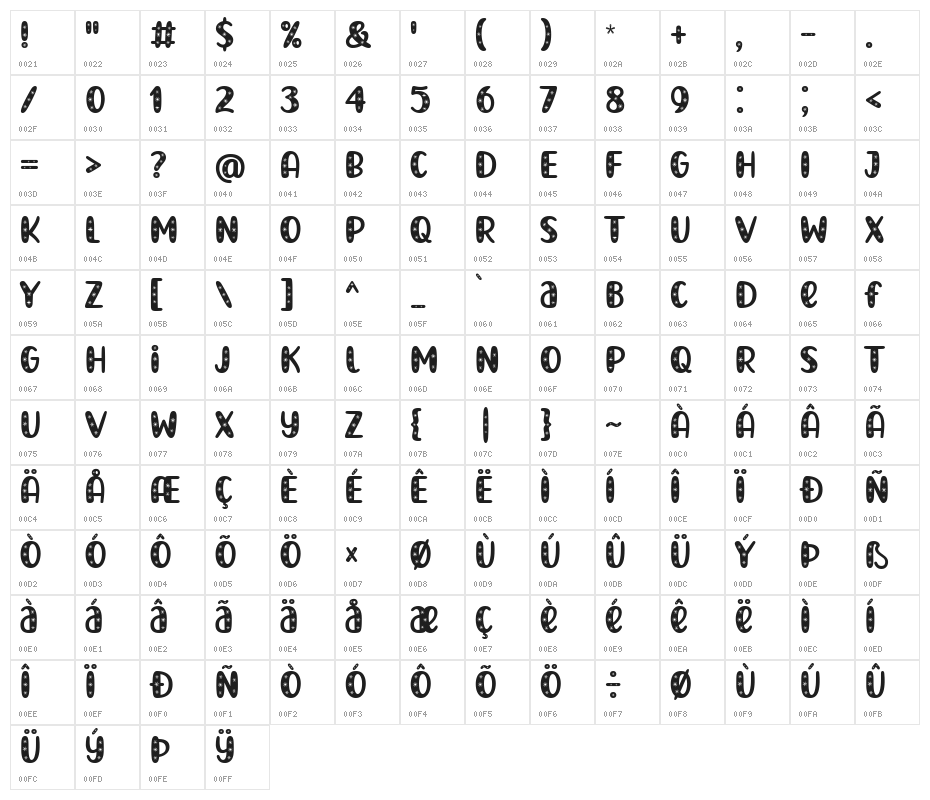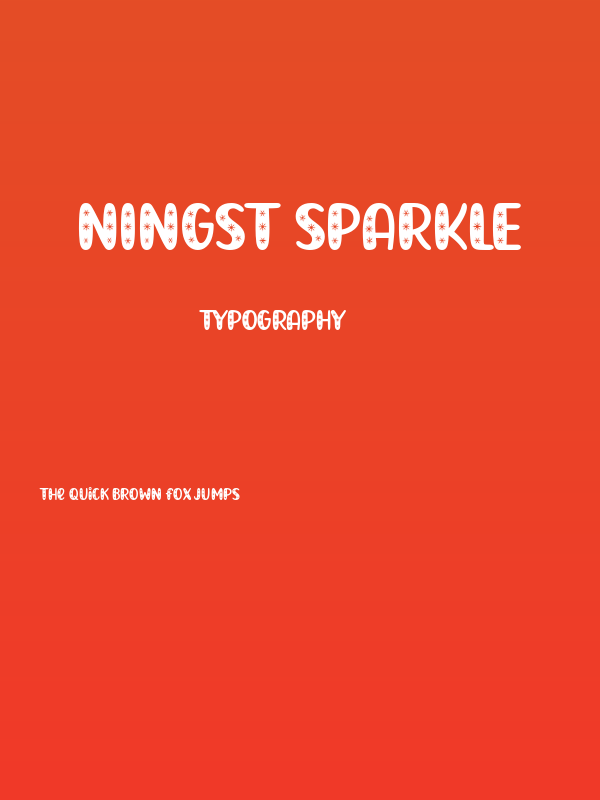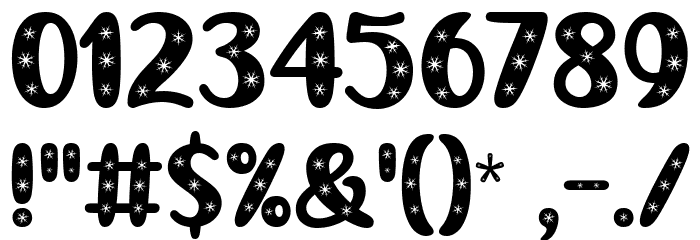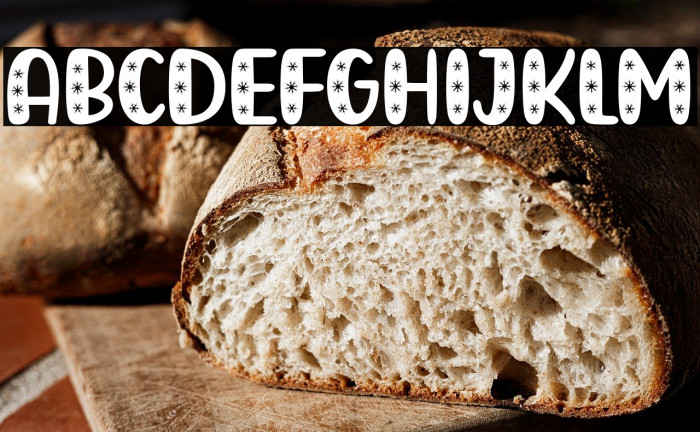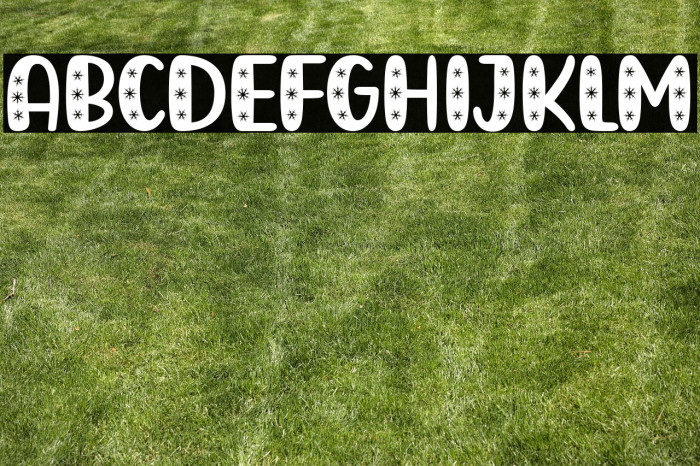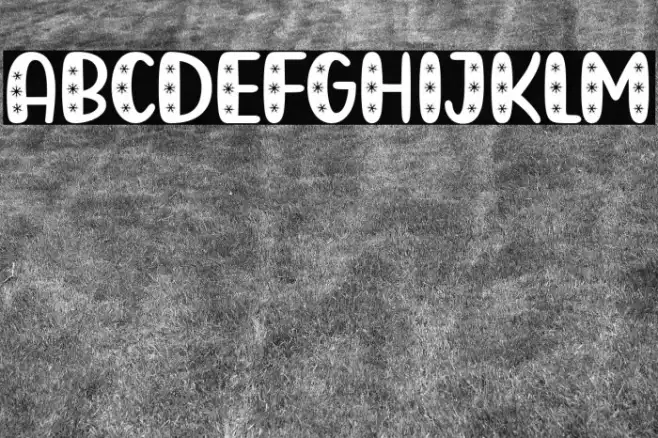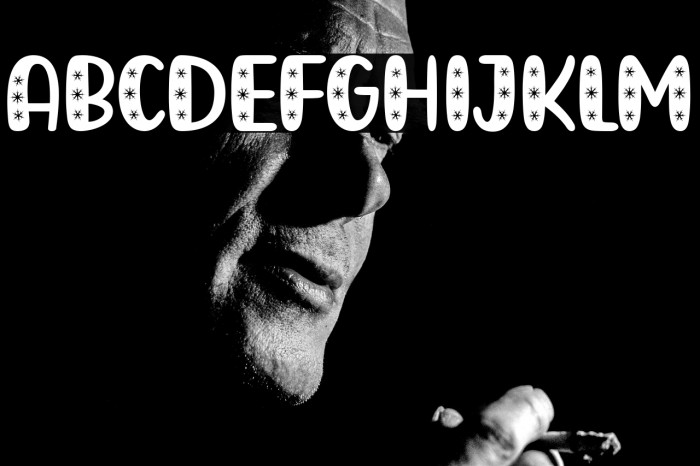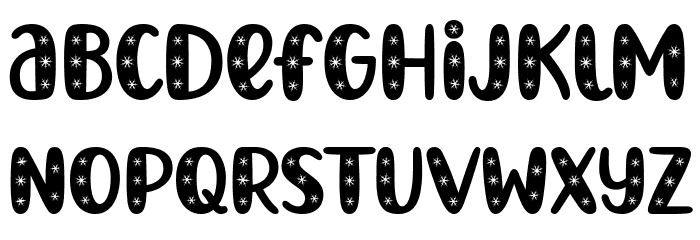
Ningst Sparkle Font
Ningst Sparkle Description
This playful and decorative font features bold, rounded characters filled with sparkling star patterns. The whimsical design adds a touch of magic and fun, making it ideal for projects that require a lively and engaging aesthetic. Each letter and number is crafted with a consistent style, ensuring a cohesive look across all characters. The font's unique sparkle effect is perfect for capturing attention and adding a festive or celebratory feel to any design. The special characters maintain the same decorative theme, enhancing the overall playful nature of the font.
| Proposed Projects | Ideal for party invitations, children's book covers, festive banners, and playful branding. |